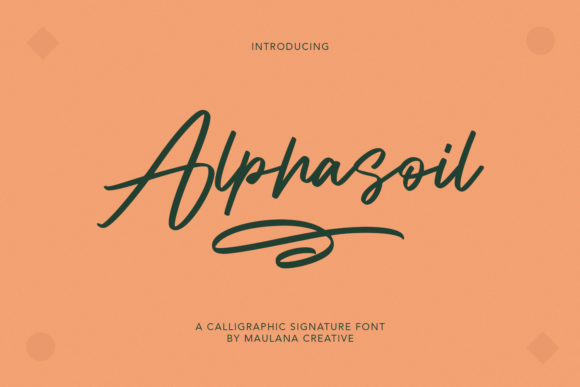
Introducing Alphasoil, a font that's so light and airy, it's like a breath of fresh air on a hot summer's day. With its delicate curves and playful personality, this script font is a charming choice for any project that needs a touch of magic.
Whether you're creating invitations, greeting cards, or social media posts, Alphasoil is sure to add a touch of whimsy and delight. It's also a great choice for branding and logo design, as its unique style is sure to leave a lasting impression.
But what really sets Alphasoil apart is its versatility. It can be dressed up or down, depending on the occasion. For a formal event, pair it with a classic serif font. For a more casual look, try pairing it with a fun and funky sans-serif font.